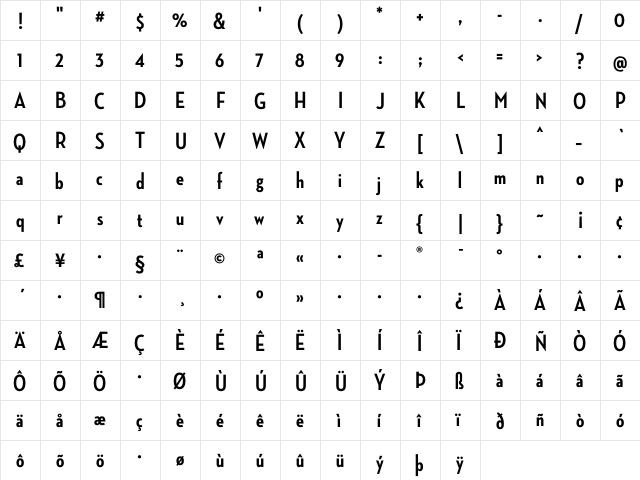
Neutraface Condensed Bold
| Designer | Christian Schwartz |
Design Context for Neutraface Condensed Typeface
Neutraface Condensed is a composed and adaptable typeface that performs quietly and consistently across a wide range of design contexts. The heavy weight commands attention and anchors typographic hierarchies. The condensed width makes it efficient for tight spaces without sacrificing legibility.